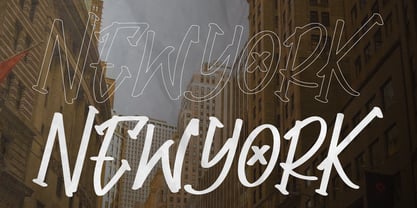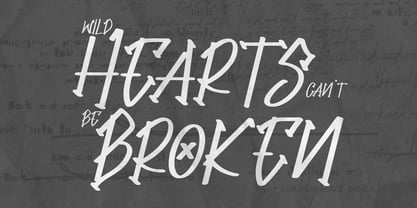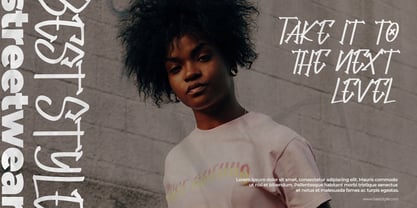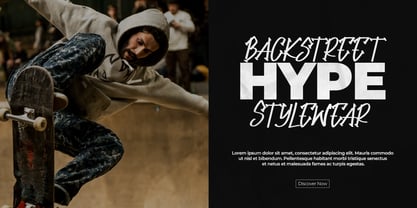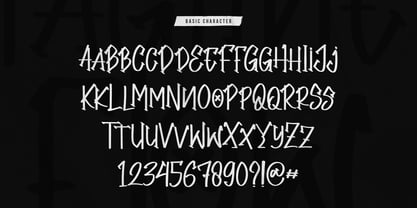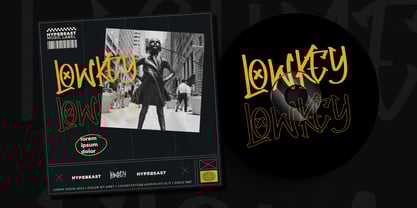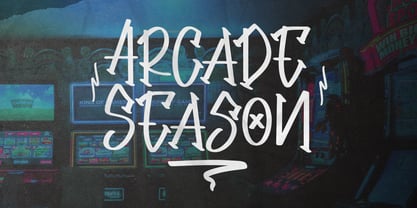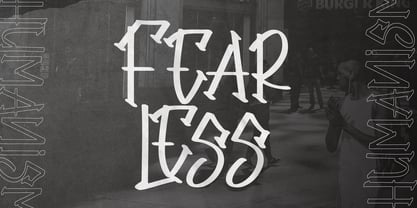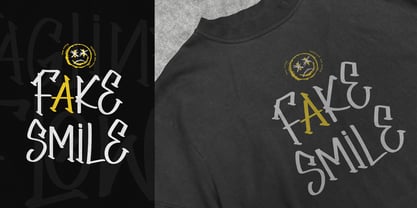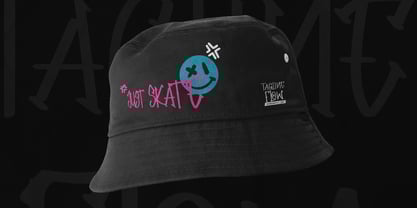
Tagline Flow
by Tini Fitriani
The Tagline Flow Font Family was designed by and published by Tini Fitriani. Tagline Flow contains 2 styles and family package options.
Tagline Flow | Urban Graffiti Font, from Gracetypestudio, suitable for any projects such as: logos, branding projects, homeware designs, product packaging, mugs, quotes, posters, shopping bags, t-shirts, book covers, name card, invitation cards, greeting cards, label, photography, watermark, special events, and all your other lovely projects that need a Urban Graffiti Font taste.
• Regular and Italic
• Alternate and Ligature